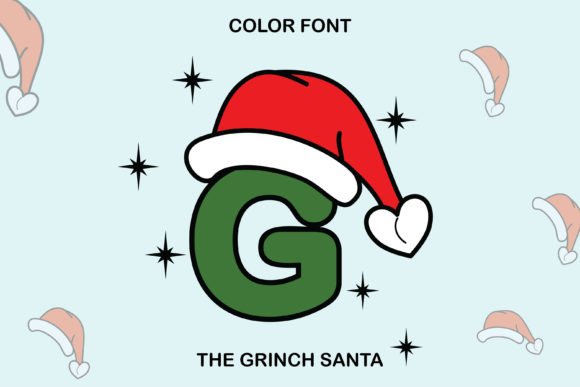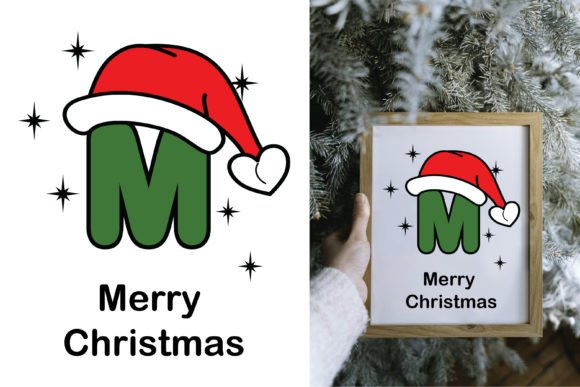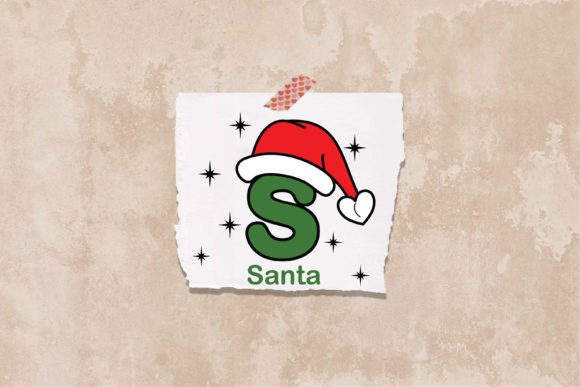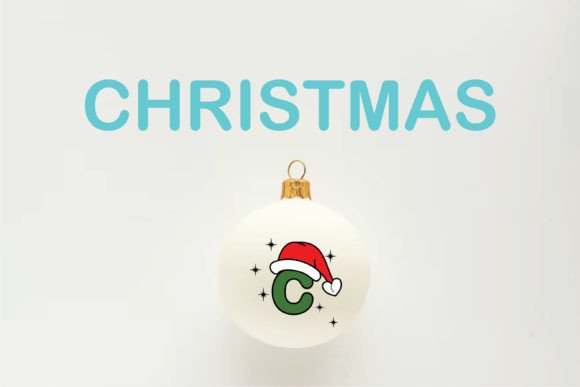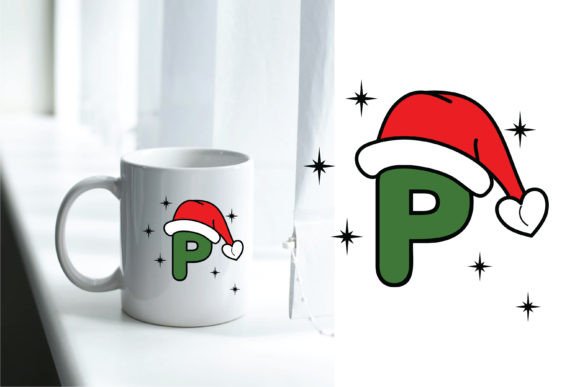
The Grinch Santa is a cute monogram color font with lovely Santa hats. It embodies playfulness and authenticity and is the perfect choice for any Christmas, children’s activity, or school project.
The Grinch Santa Font